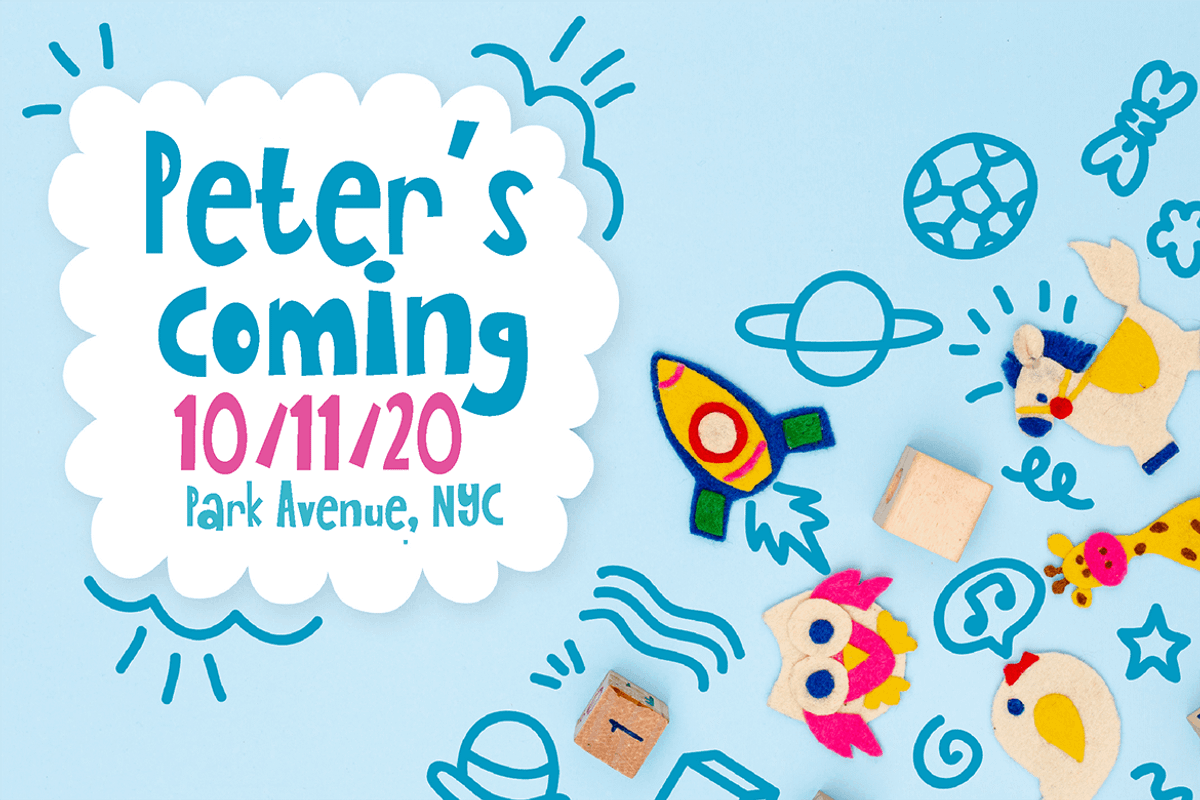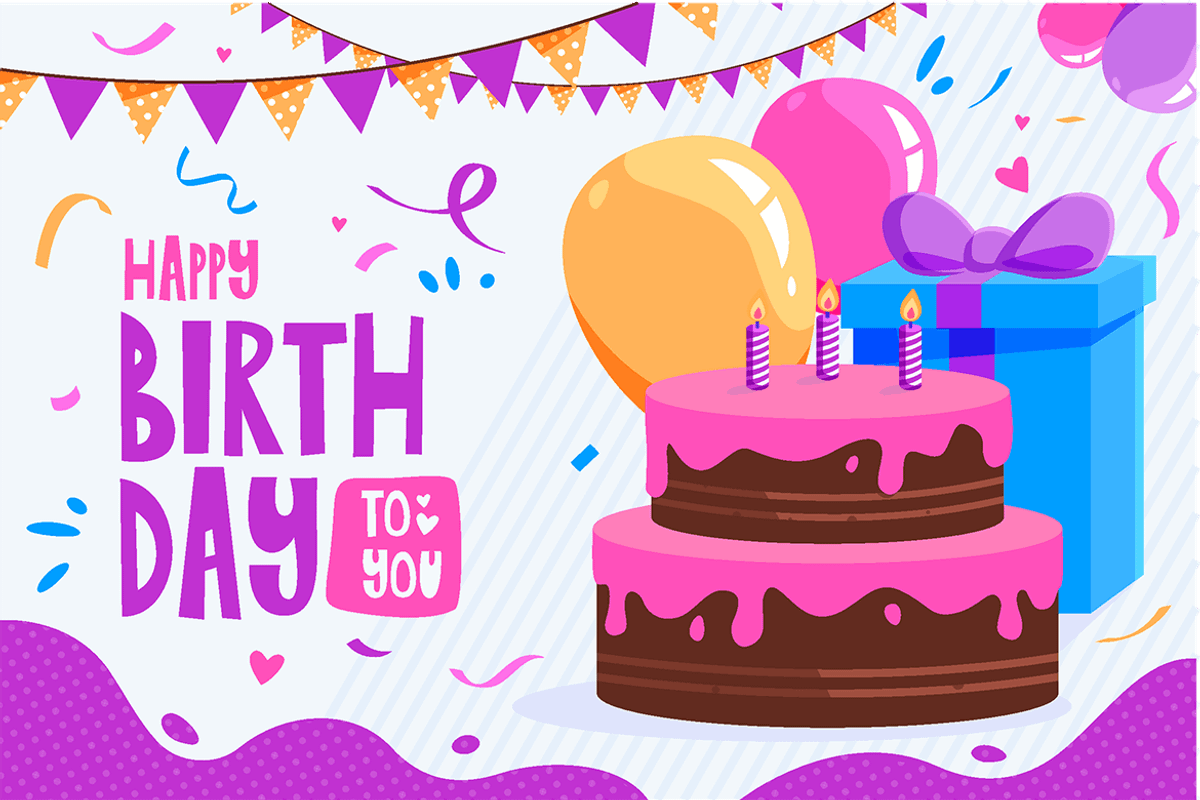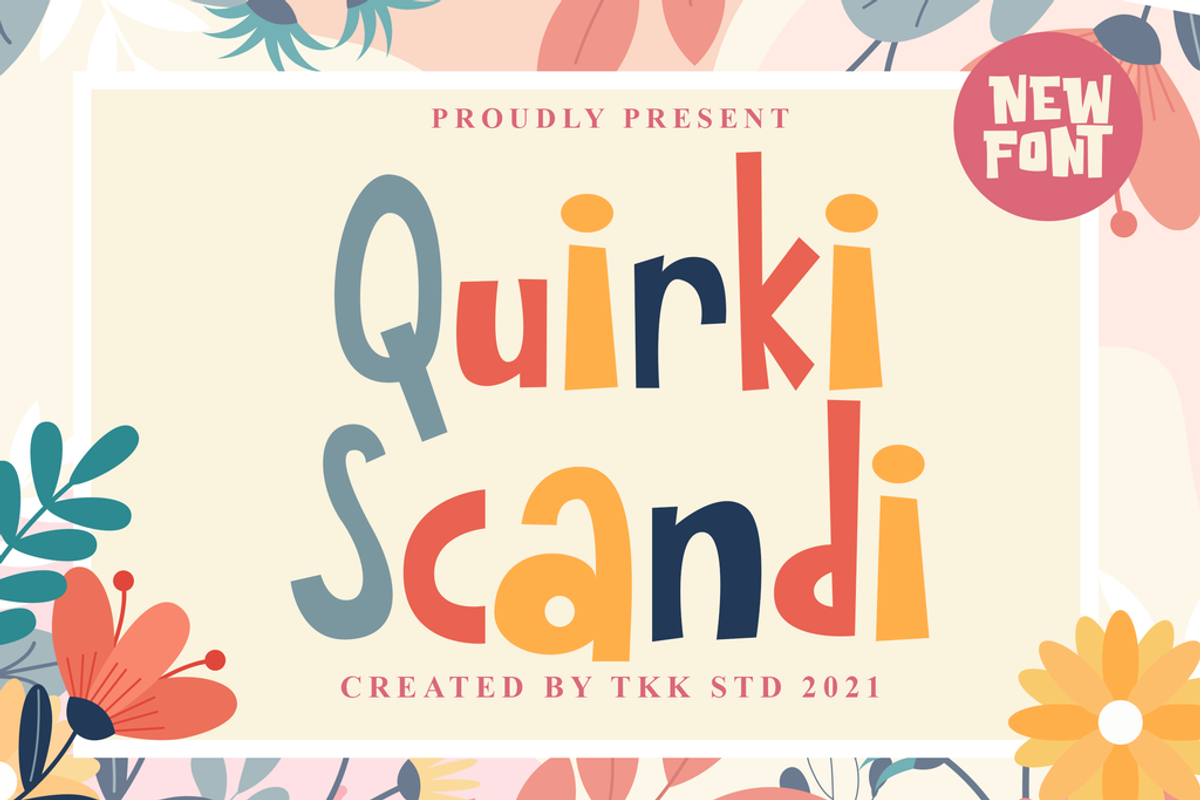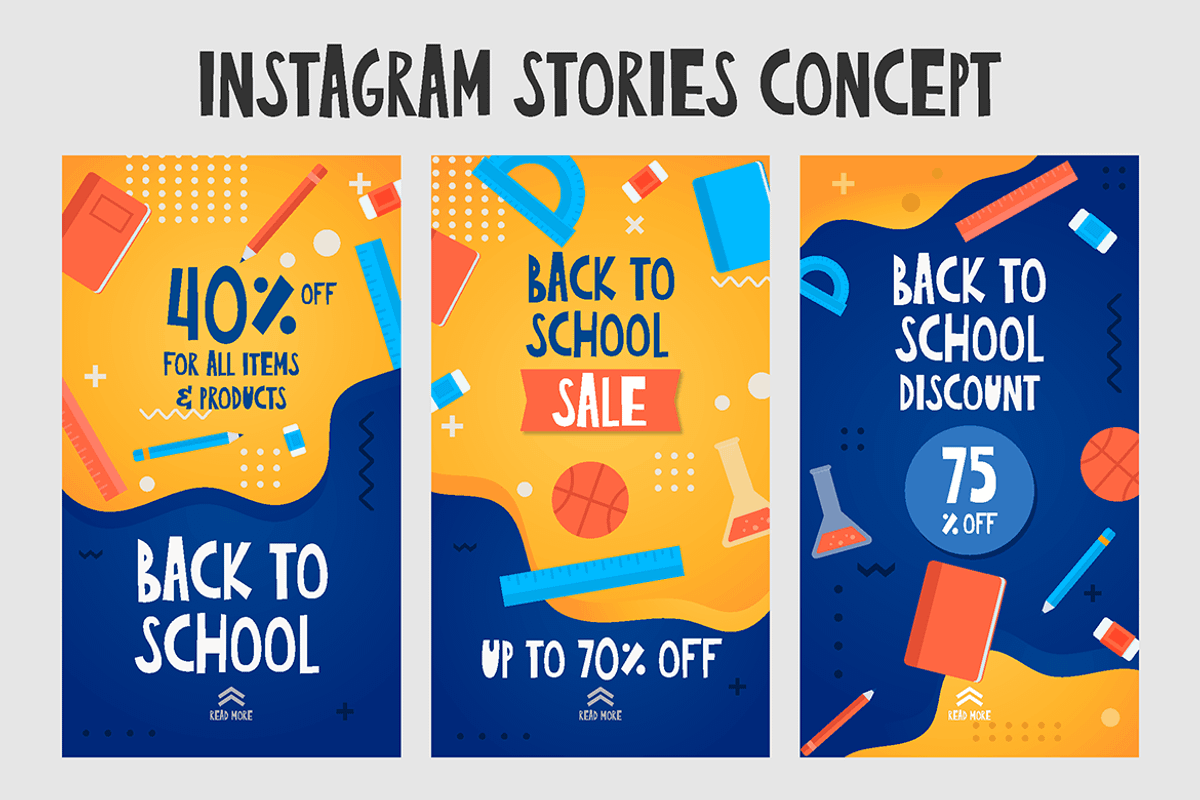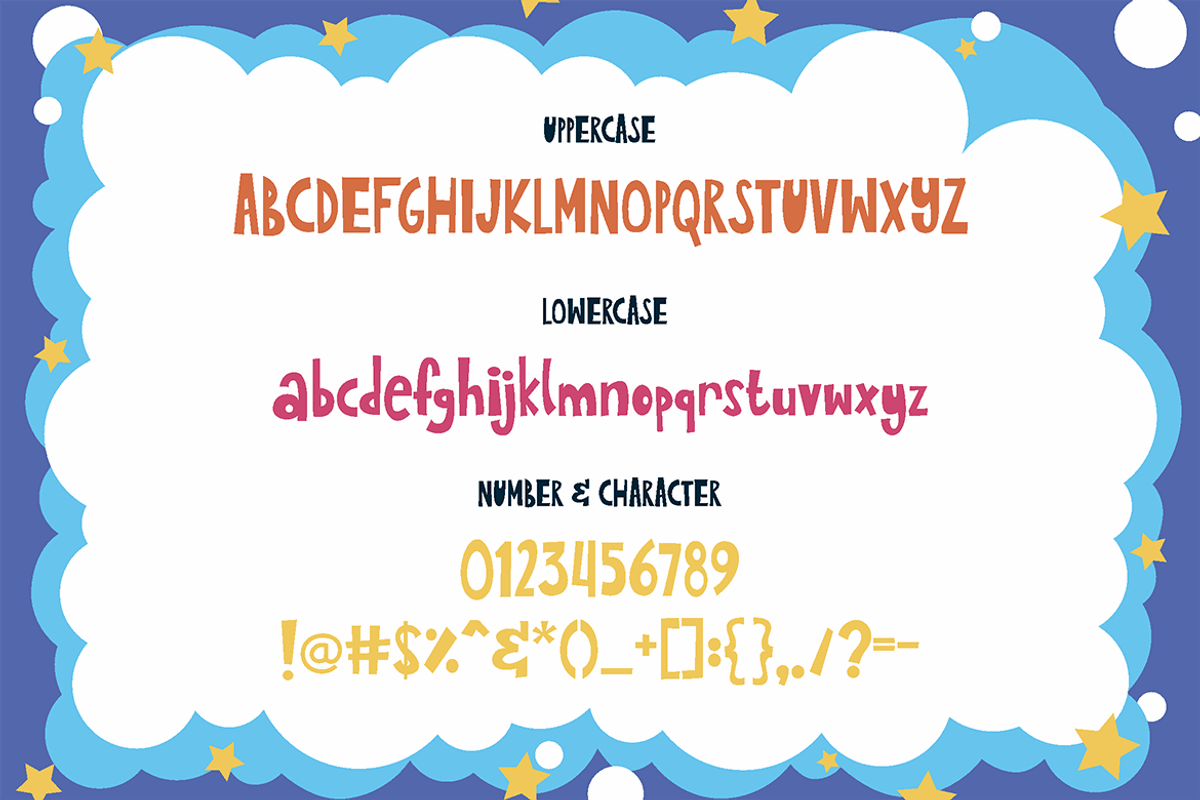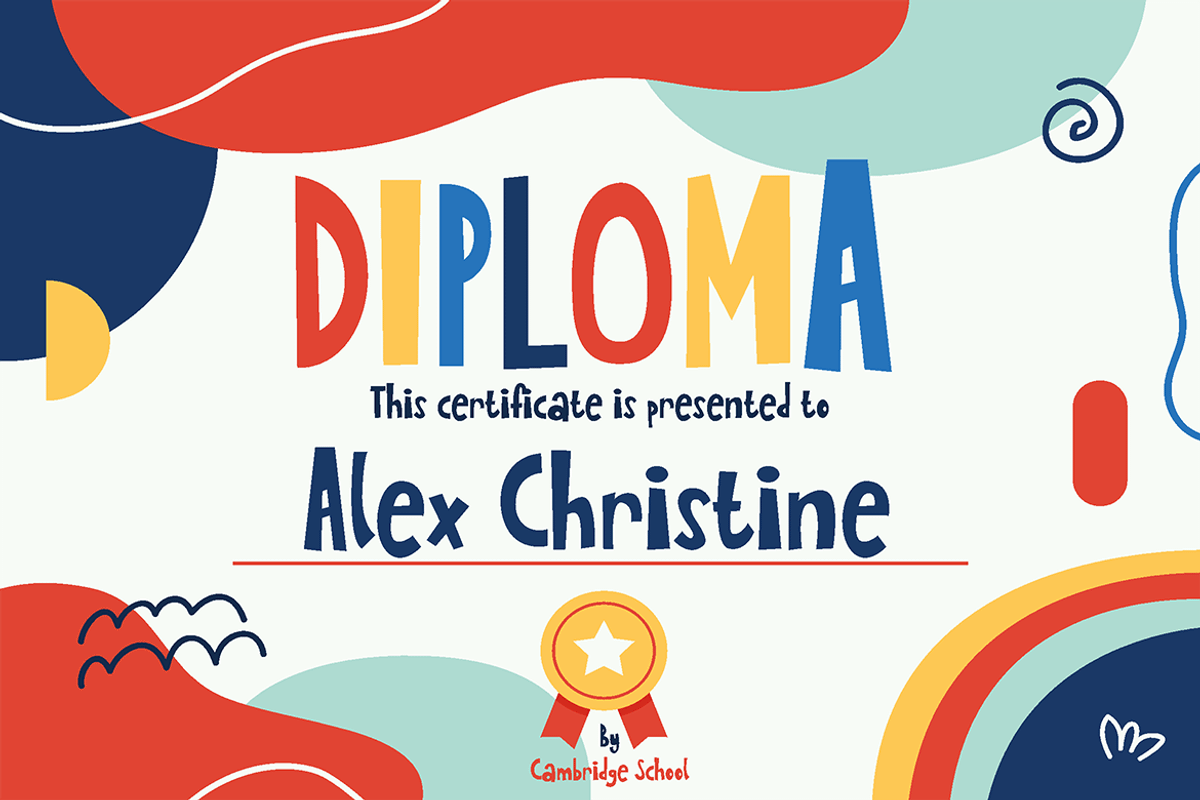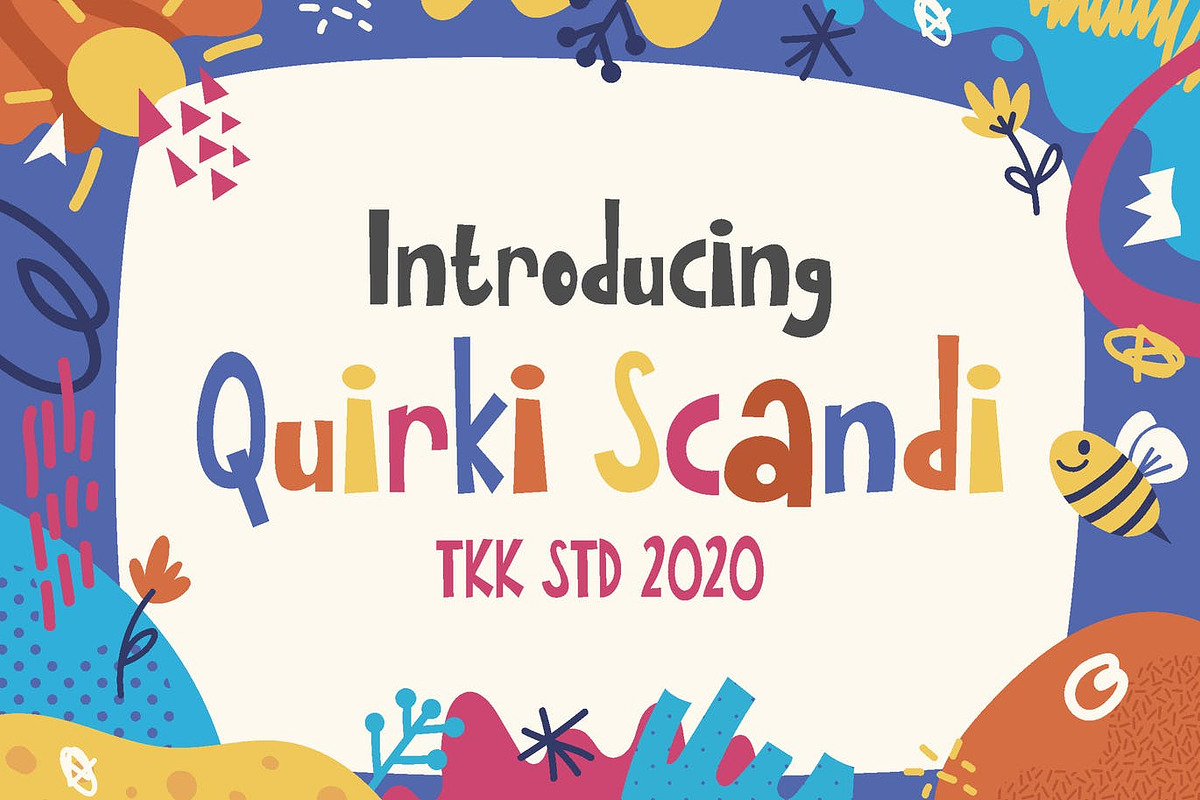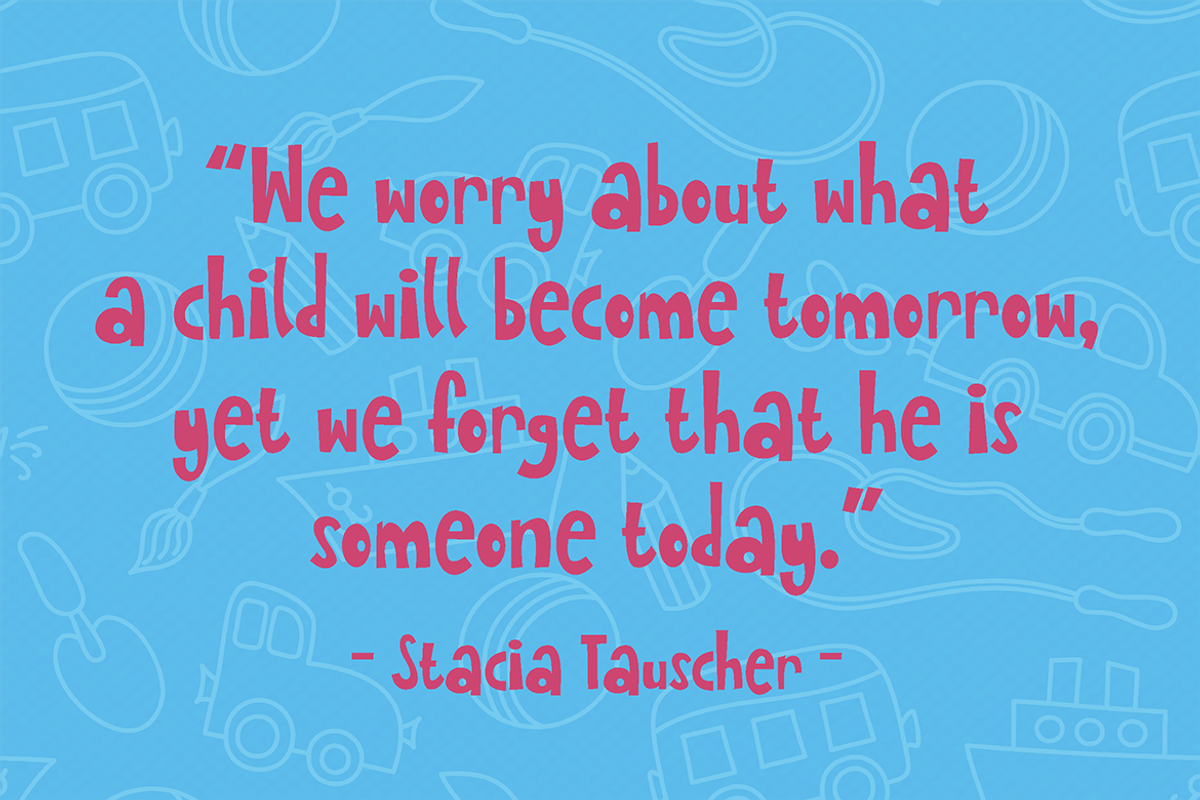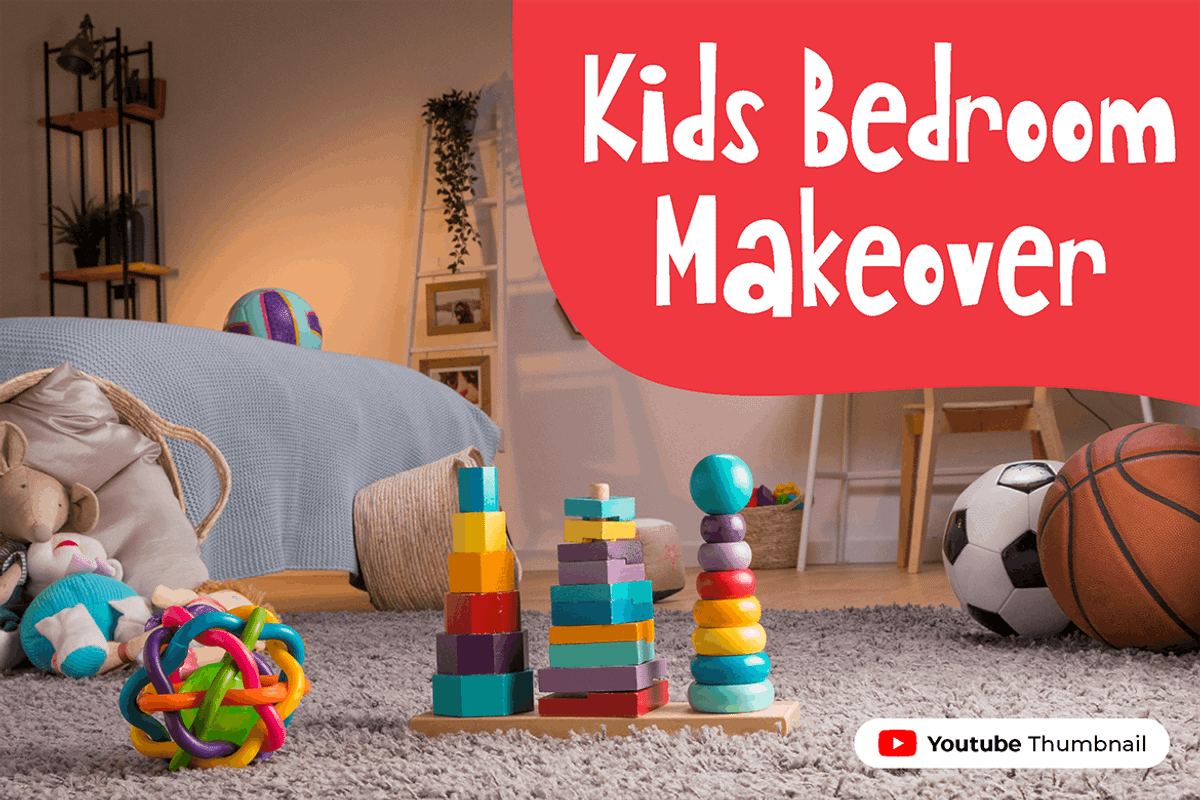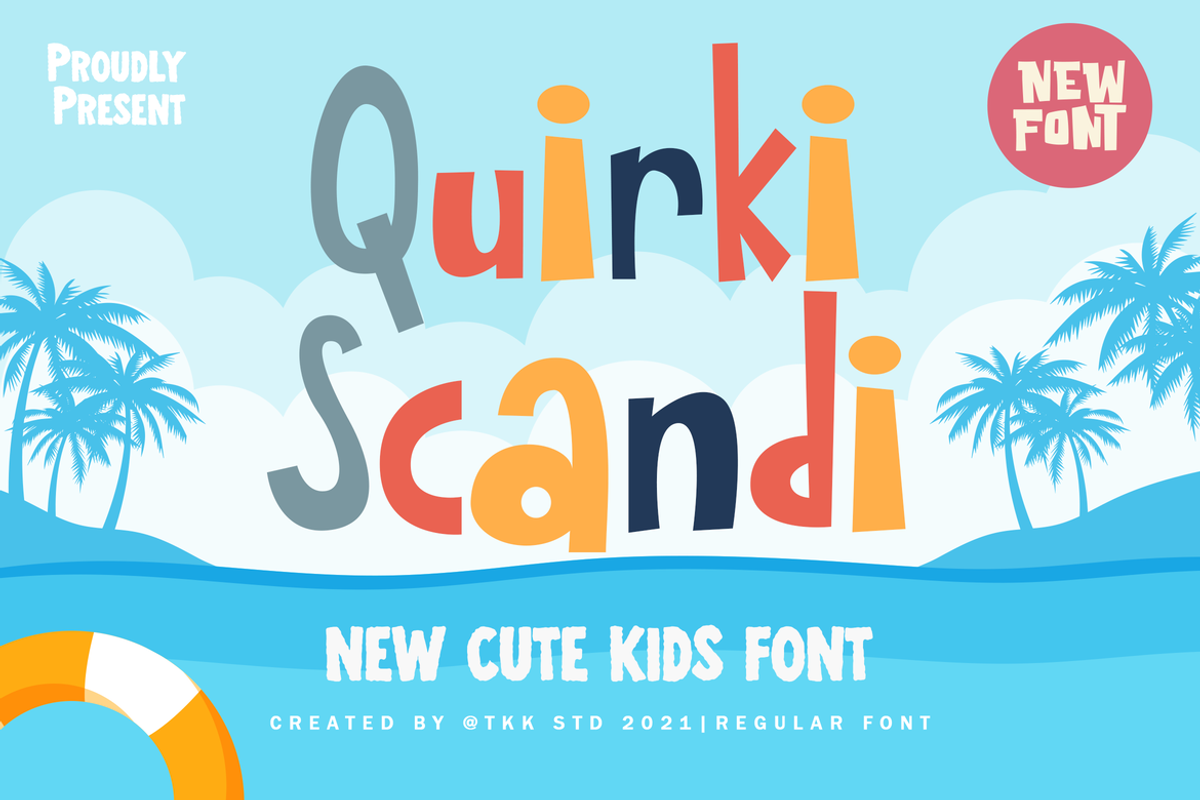
Quirki Scandi - Kids Font
Quirki Scandi kids font is perfect to describe such feeling. The shape is so good, it has a bouncy baseline, a sharp corner to emphasize the active kid behaviour, and the clarity of each letter…makes no mistakes in every sentence it spell.
Suit perfectly for children poster, movie title, fast food menu, magazine, youtube covers, youtube thumbnails, social media page covers, birthday poster, or some motivation words to be hanging in their room wall and so on…